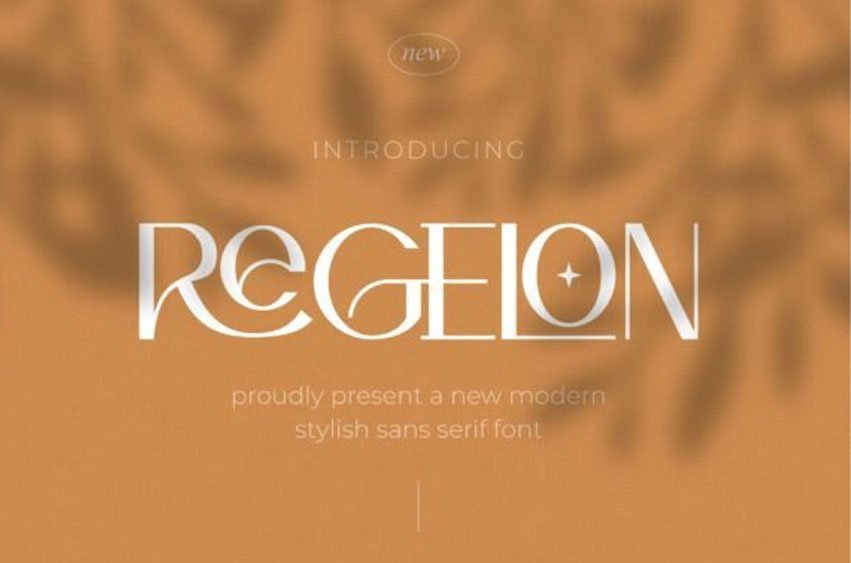
Regelon Font is a modern, trendy, bouncy, and cute serif font. It has a unique character with a wood theme.
It can be combined with invitation card designs, company logos, movie titles, movie names, business cards, book titles, brand names, and other designs.